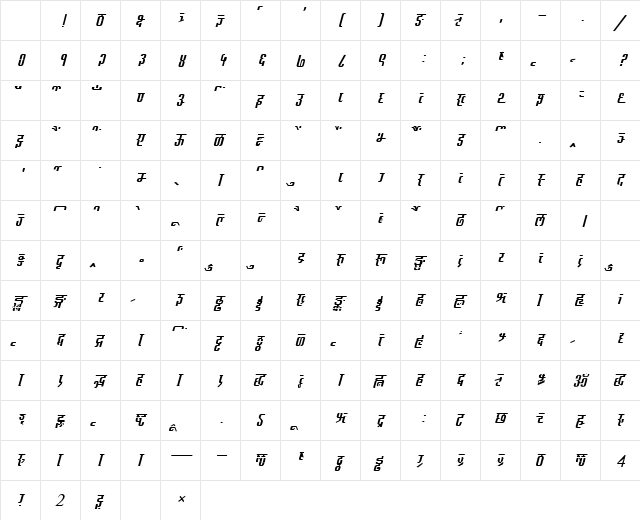
Complete AkrutiDevAkshay NormalItalic glyph index. Displaying only characters natively supported by AkrutiDevAkshay NormalItalic font.
AkrutiDevAkshay is a composed and adaptable typeface that performs quietly and consistently across a wide range of design contexts. The slanted form adds forward momentum and visual energy.